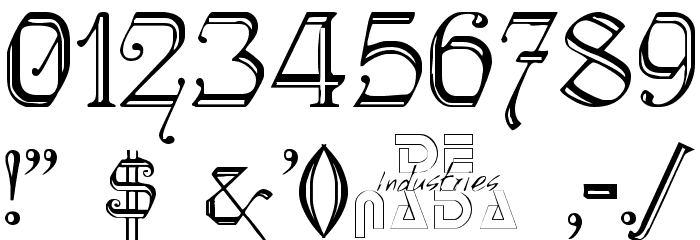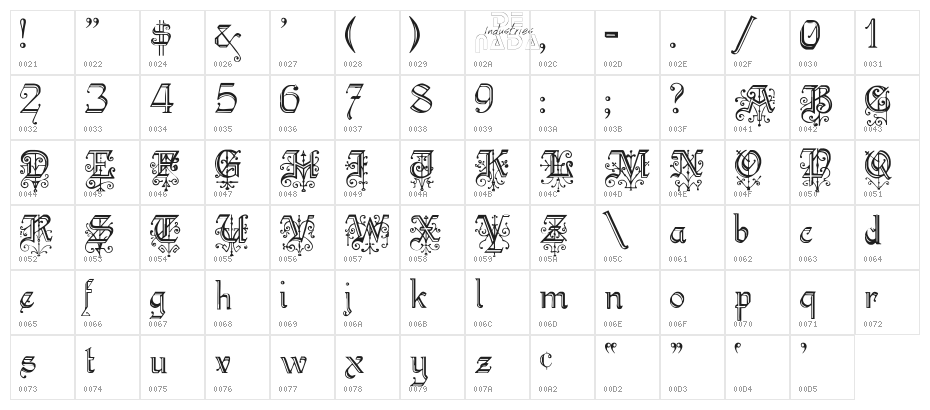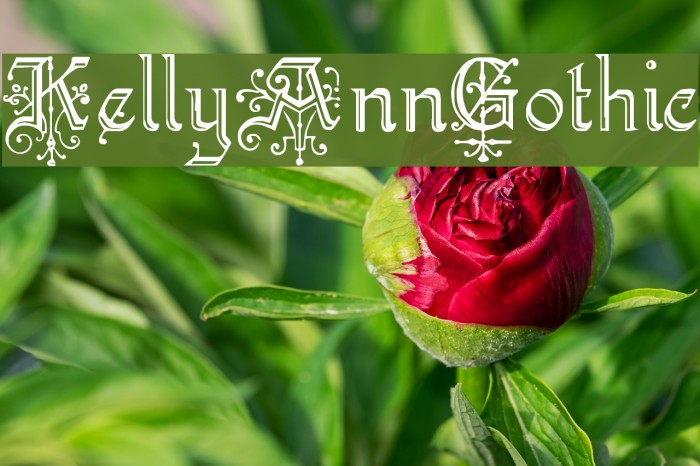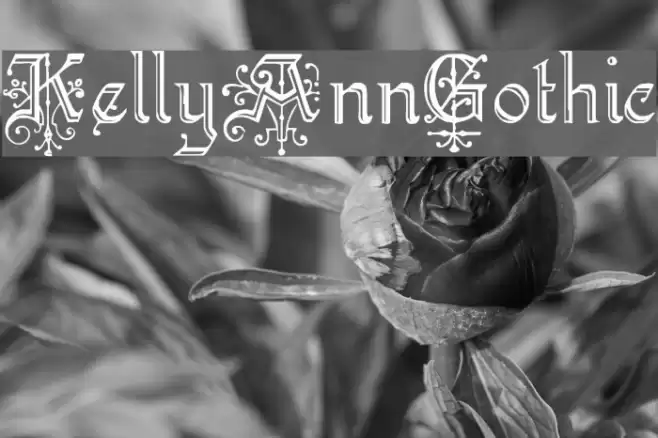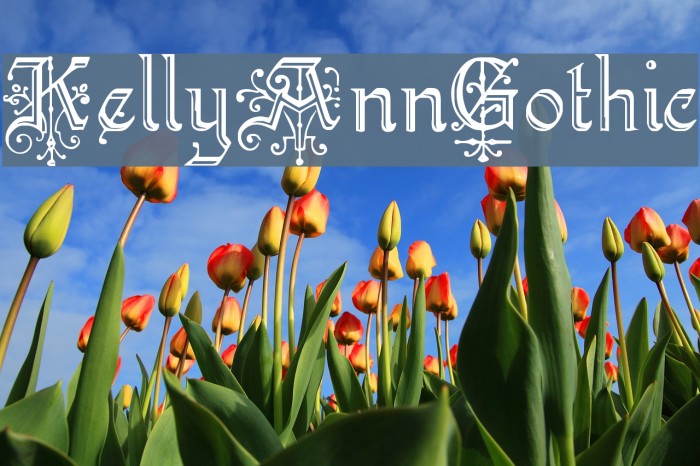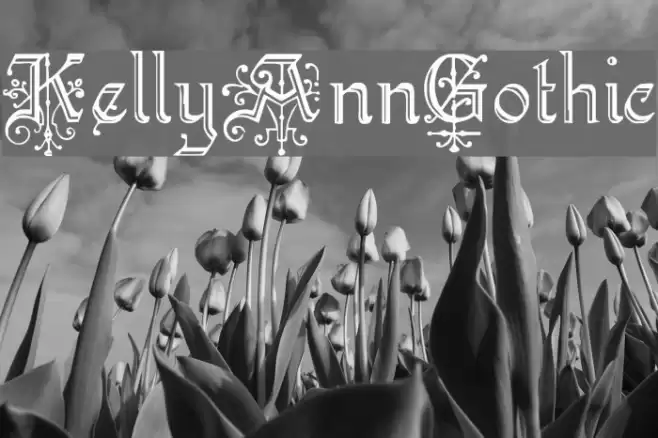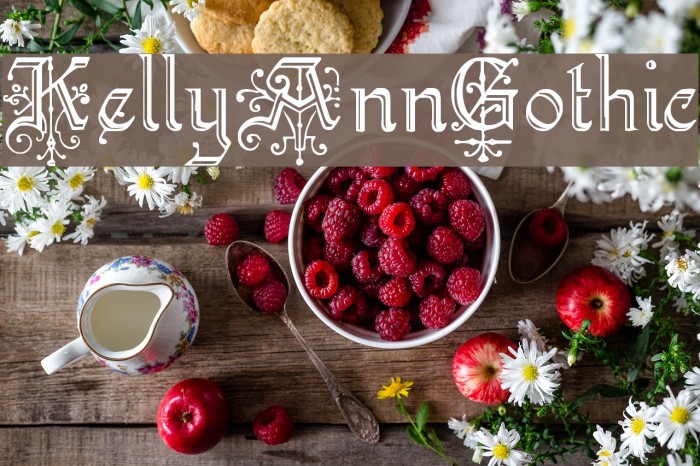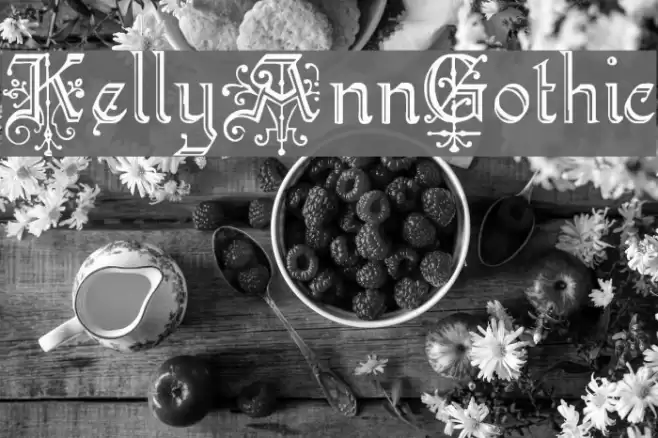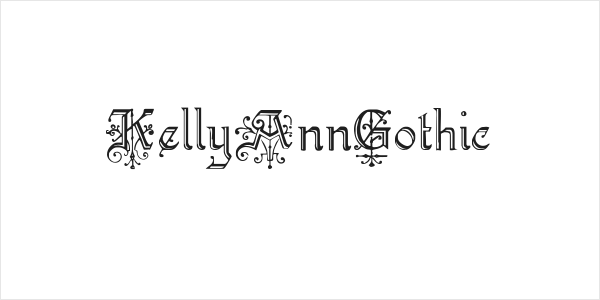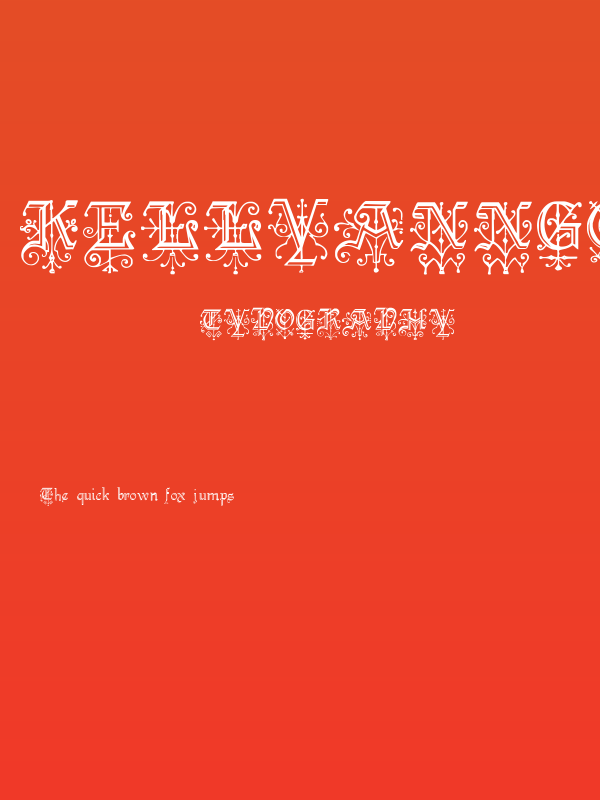
KellyAnnGothic Font
KellyAnnGothic Description
This font is a striking blend of intricate Gothic elements and modern design. The uppercase letters are adorned with elaborate flourishes and decorative accents, giving them a regal and ornate appearance. The lowercase letters maintain a more streamlined yet still decorative style, with sharp angles and unique serifs that add to the overall Gothic aesthetic. The numerals are bold and consistent with the font's theme, featuring angular cuts and a strong presence. Special characters are equally detailed, ensuring a cohesive look across all glyphs. This font's intricate design makes it ideal for projects that require a dramatic and historical touch.
| Proposed Projects | Ideal for use in branding, posters, book covers, and any project requiring a dramatic and historical aesthetic. |